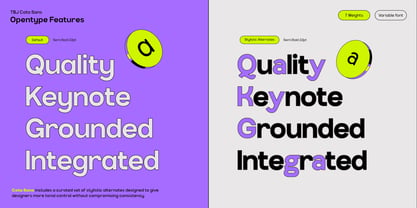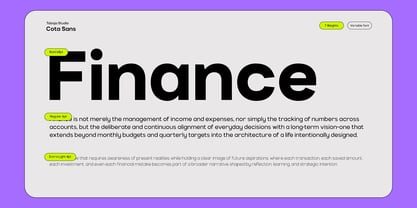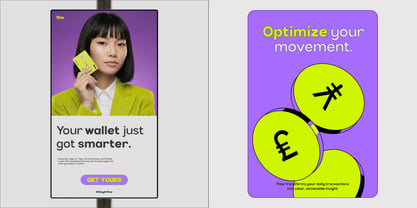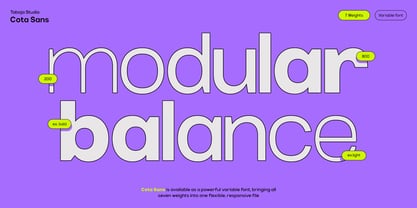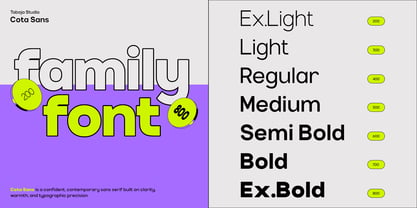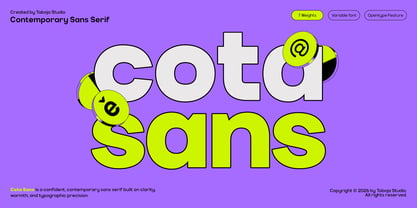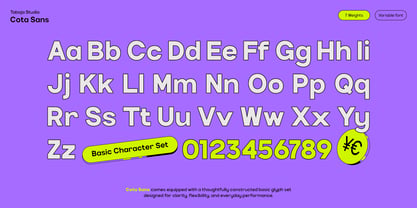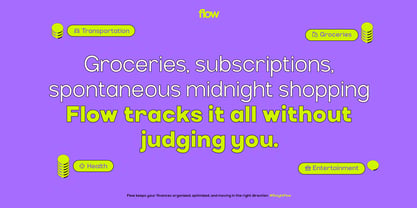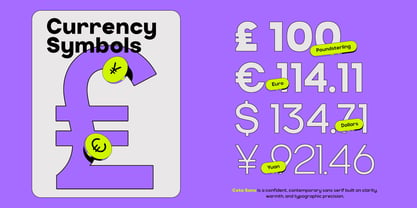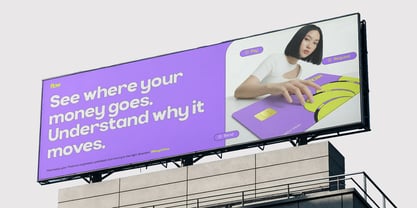
TBJ Cota Sans
TBJ Cota Sans was not created to shout. It was designed to speak clearly, confidently, and with purpose.
In a world where visual noise competes for attention, Cota Sans stands as a quiet system of order. A contemporary grotesk sans serif built on clarity, warmth, and precision, it brings structure to chaos and calm to complexity. Every curve, every space, every weight has been carefully considered to deliver a typeface that feels both rational and human.
Inspired by the timeless discipline of classic grotesk typography, Cota Sans reinterprets those foundations for today’s design landscape. It carries a neutral tone but never feels cold. Subtle humanist touches soften its geometry, allowing it to adapt effortlessly across branding, editorial, and digital interfaces.
At its core, Cota Sans is a variable font system fluid, responsive, and built for modern workflows. With a continuous weight axis ranging from Extra Light to Extra Bold, it gives designers full control to shape hierarchy, expression, and rhythm without breaking consistency. Whether used for bold headlines or refined body text, it maintains balance and readability at every scale. This isn’t just a typeface it’s a system designed to grow with your ideas.